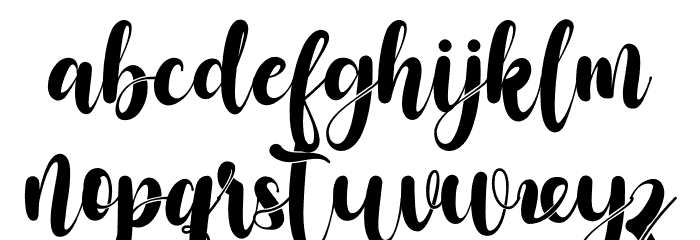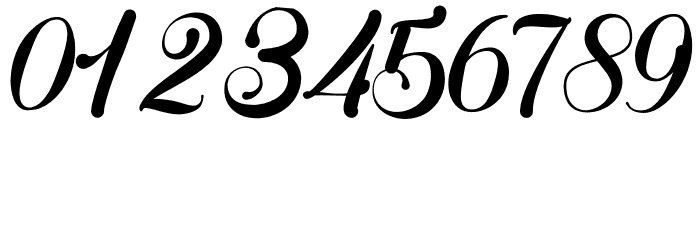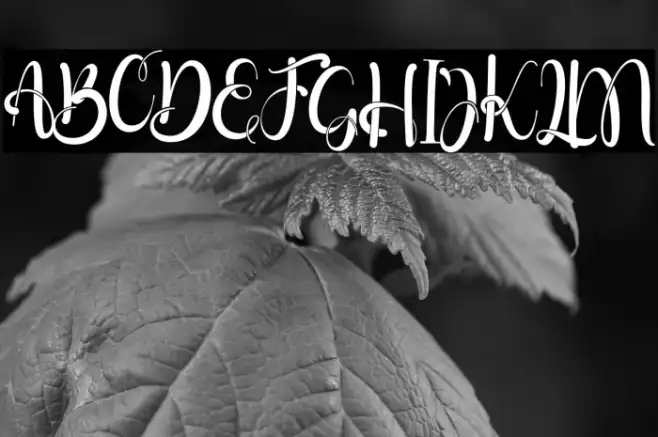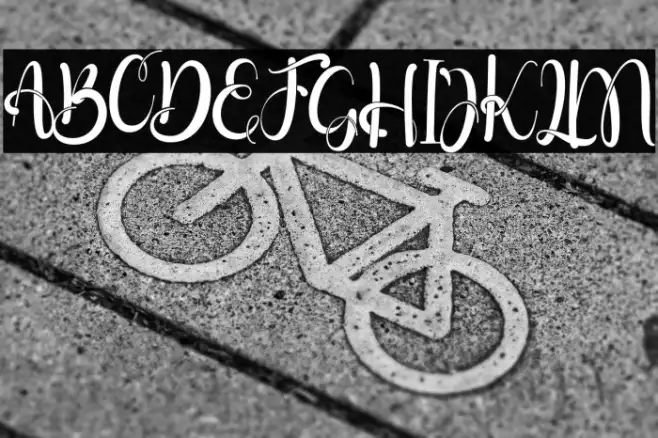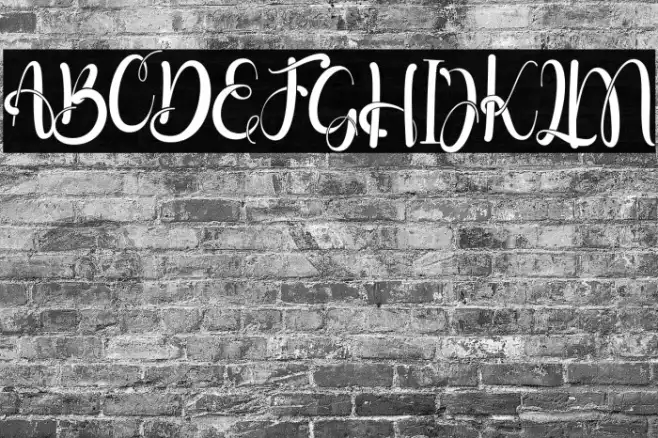
Little Tabilla Font
This font features an elegant and flowing script style, characterized by its smooth, cursive letterforms that exude a sense of sophistication and grace. The uppercase letters are particularly ornate, with intricate loops and swirls that add a decorative flair. The lowercase letters maintain a consistent flow, enhancing readability while retaining an artistic touch. The numbers are equally stylized, with a playful yet refined appearance. This font's unique charm makes it suitable for projects that require a personal and artistic touch.
An elegant, flowing script font with ornate uppercase and smooth lowercase letters.
- Font: Little Tabilla
- Proposed Projects: Ideal for wedding invitations, greeting cards, branding, and logo design.
- Category: Script
- Use Case: Logos, Invitations, Decorative text